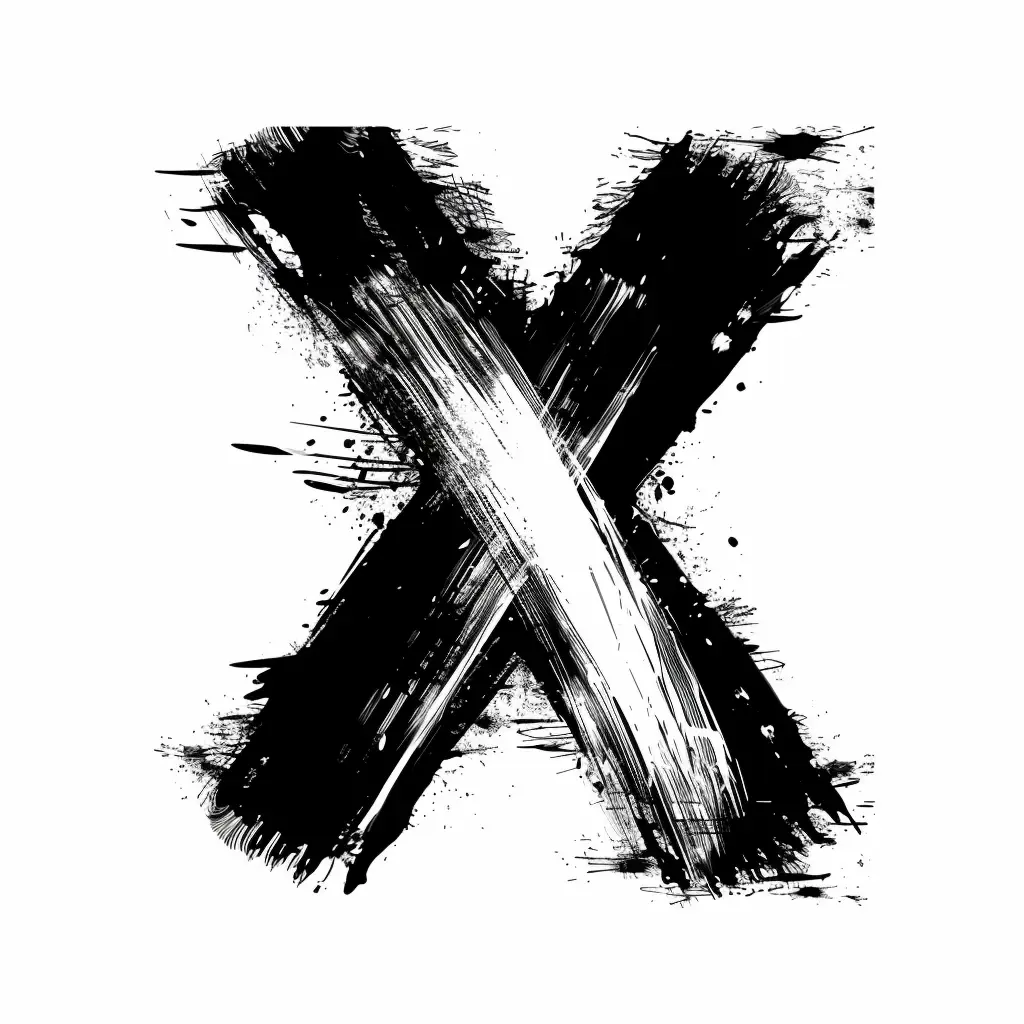
The image features a bold, stylized letter "X" created with rough, brushstroke-like black ink on a white background. The design includes textured, uneven edges, splatters, and streaks, giving it a grungy, artistic appearance. The high contrast between the black and white emphasizes the dynamic, hand-painted style of the letter.